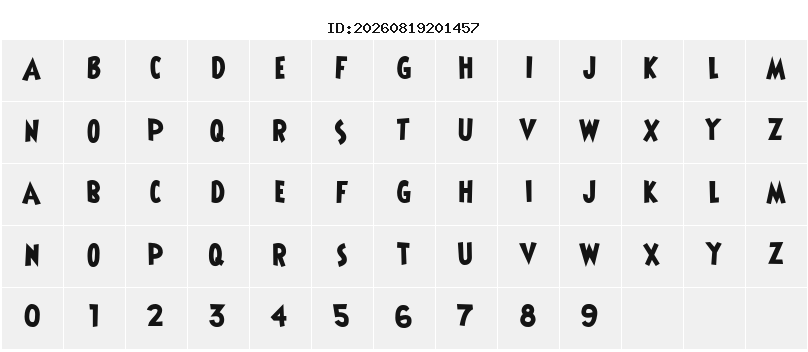
• Font Name: ShermlockSolid
About ShermlockSolid.ttf
ShermlockSolid.ttf is a modern, elegant sans-serif font designed for ultimate readability and visual harmony. Perfect for branding, headlines, web design, and print materials.